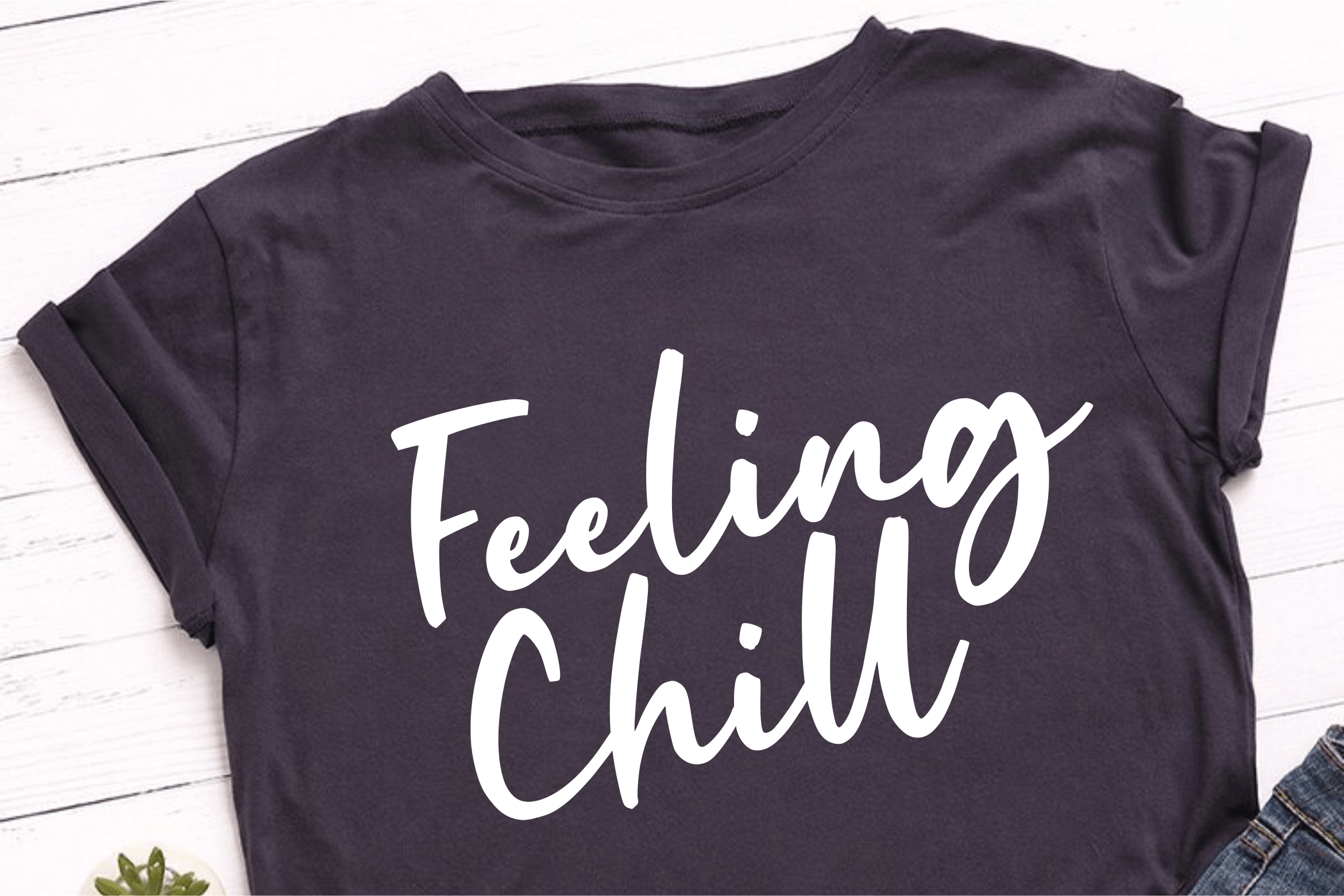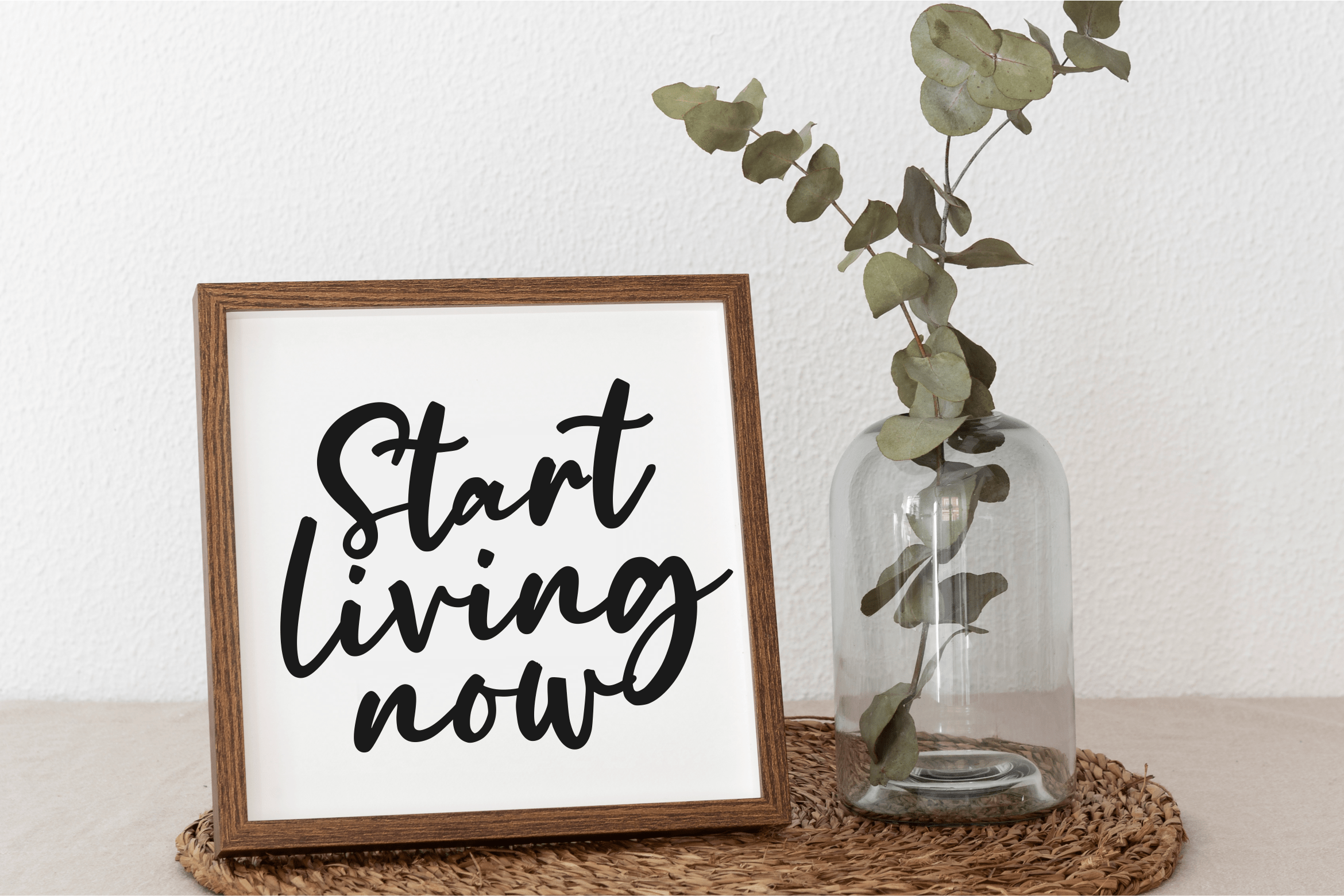
Delightifull Script Font
This is a Modern Handwritten Script Font. Delightifull is perfect for product packaging, branding project, magazines, social media, weddings, or just used to express words above the background.